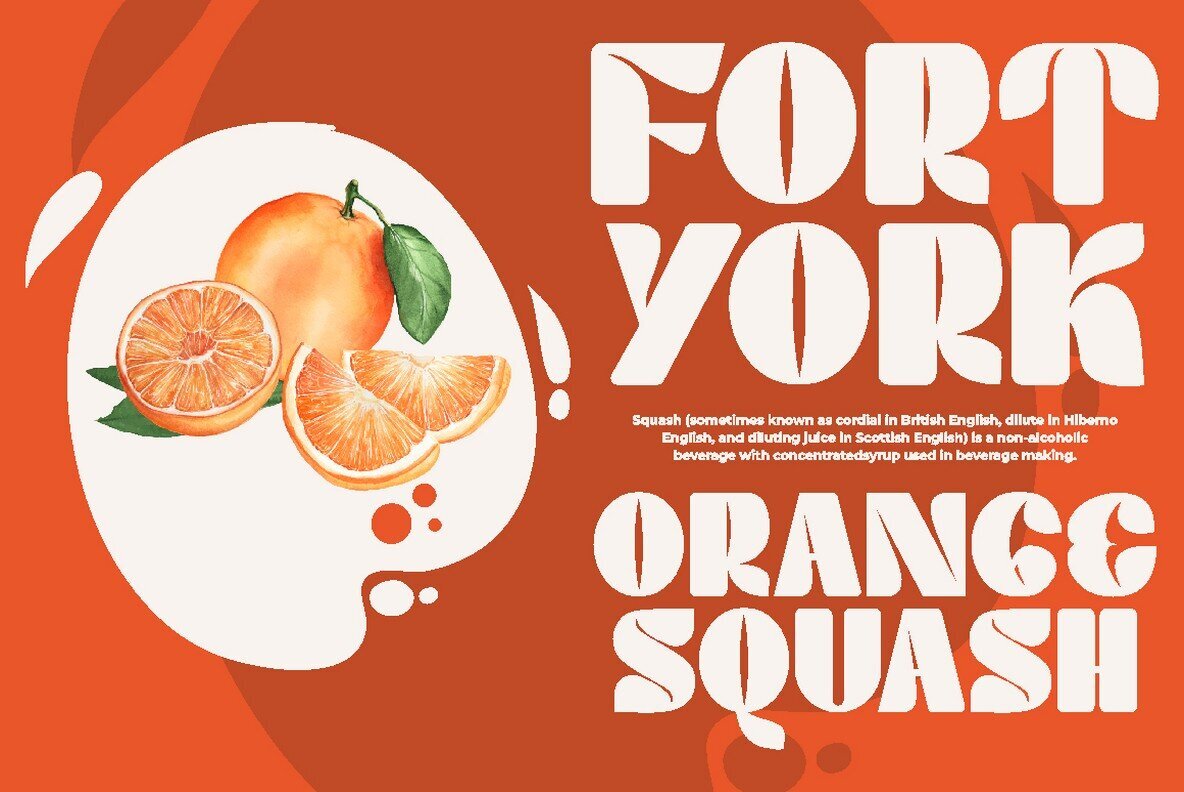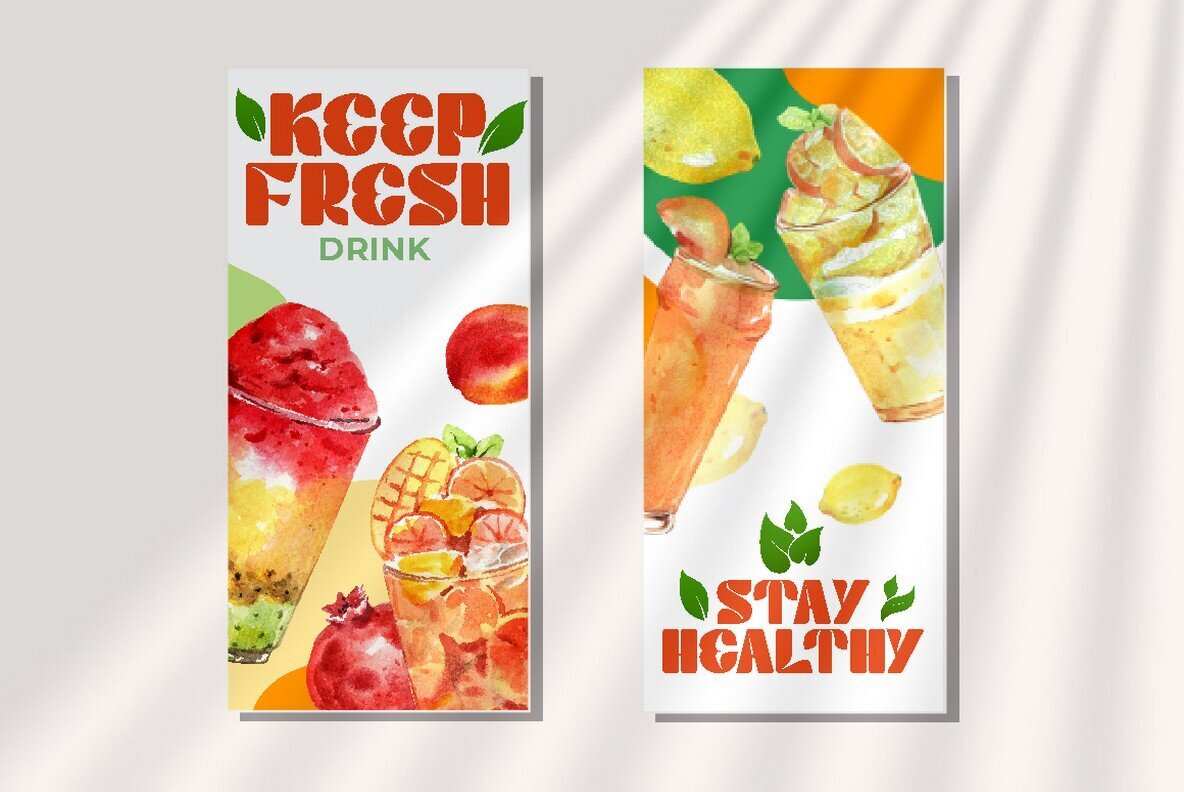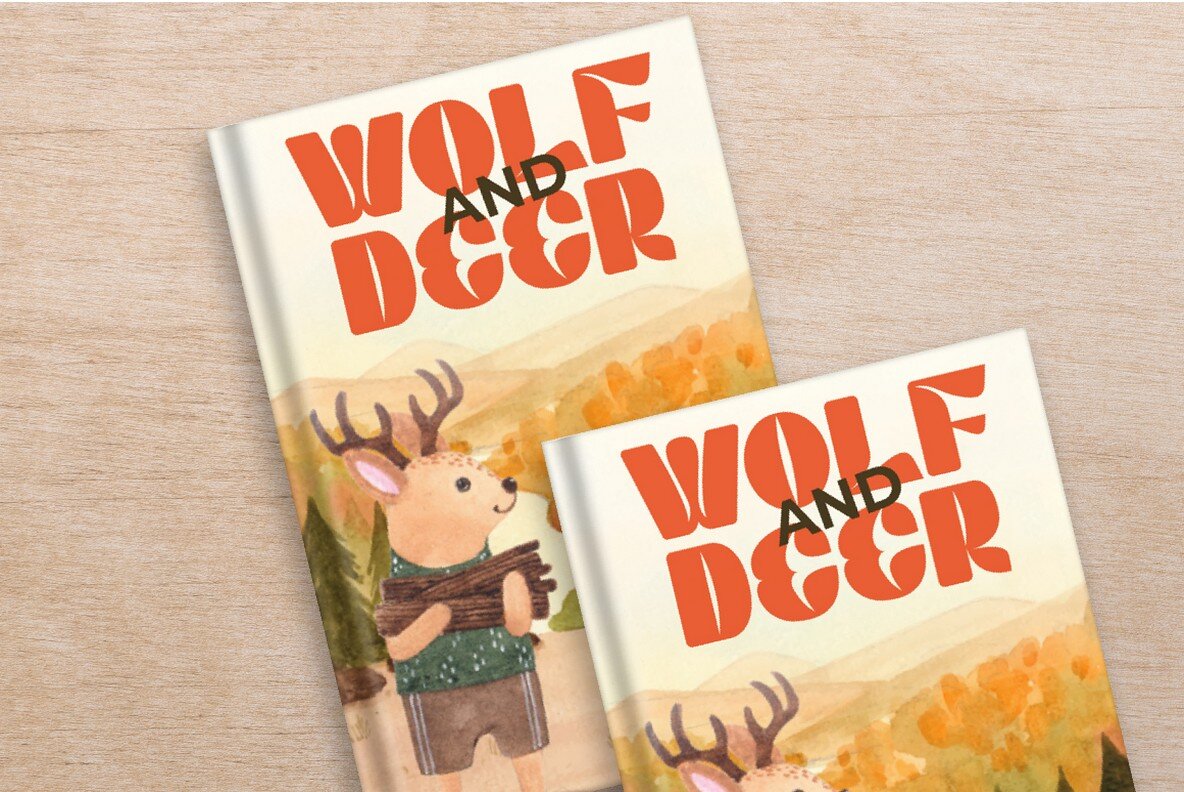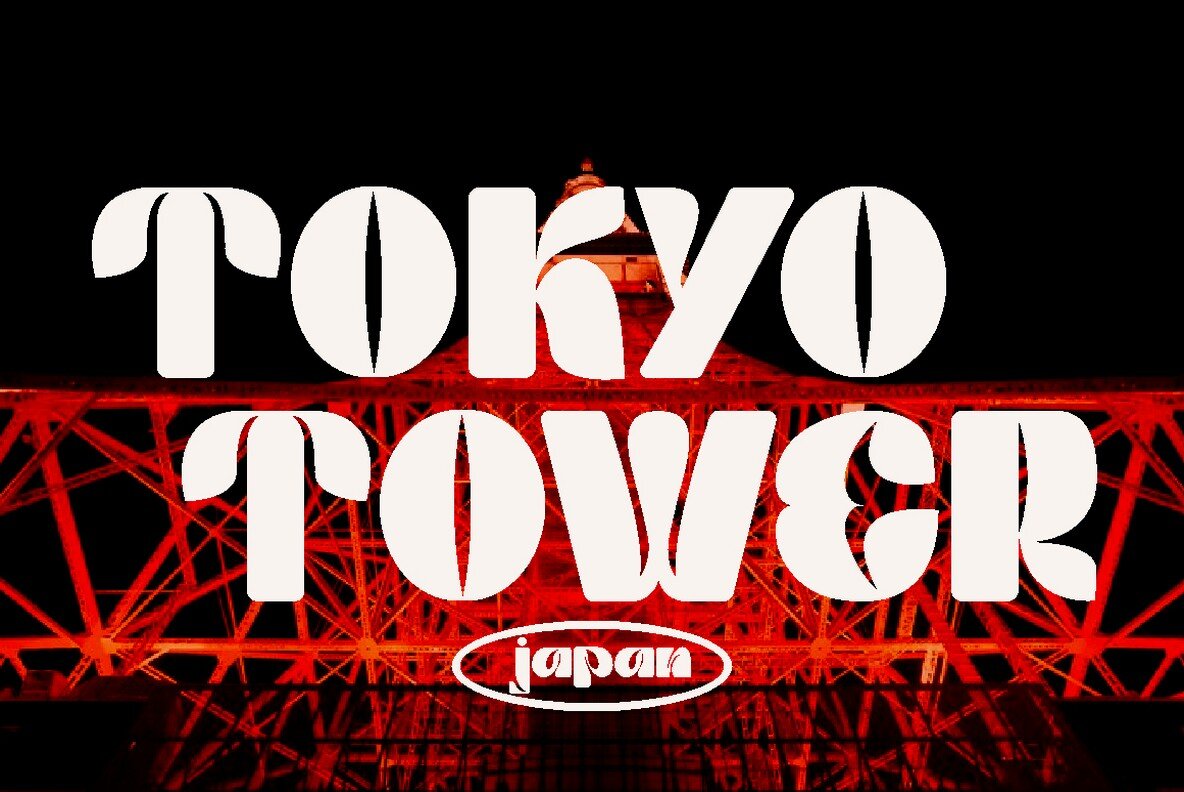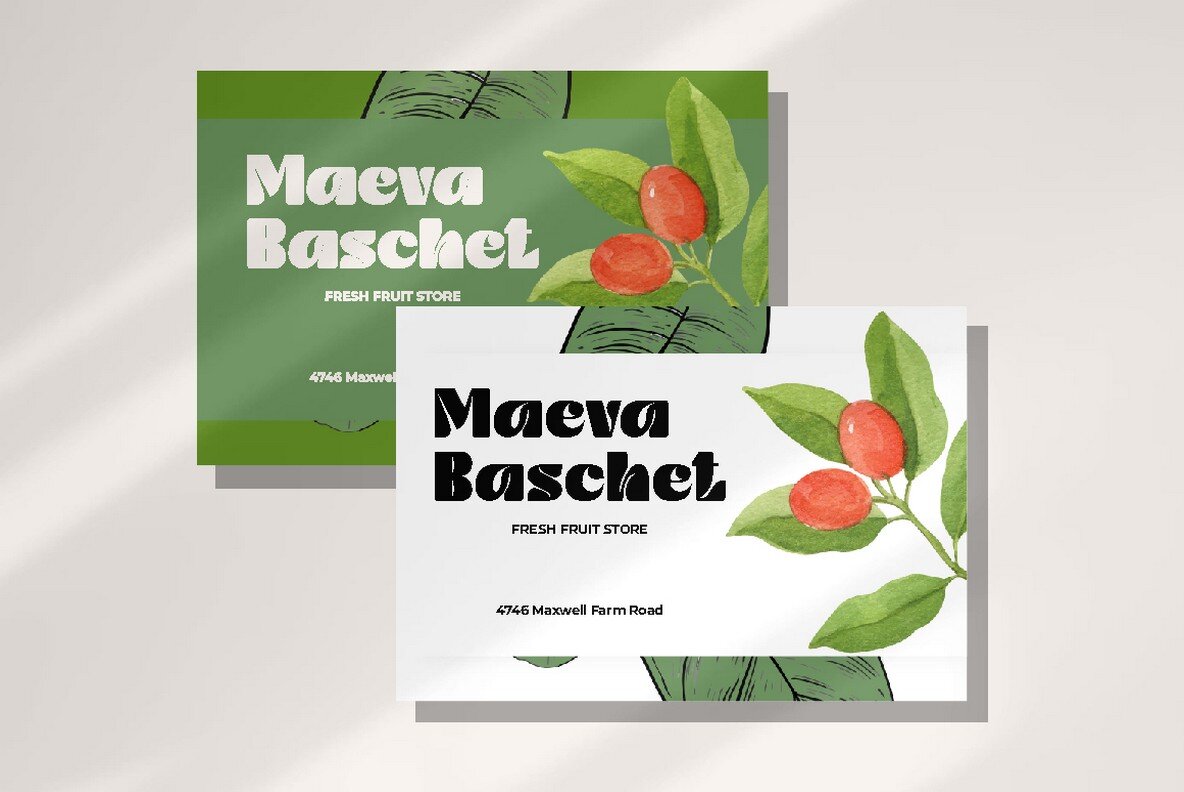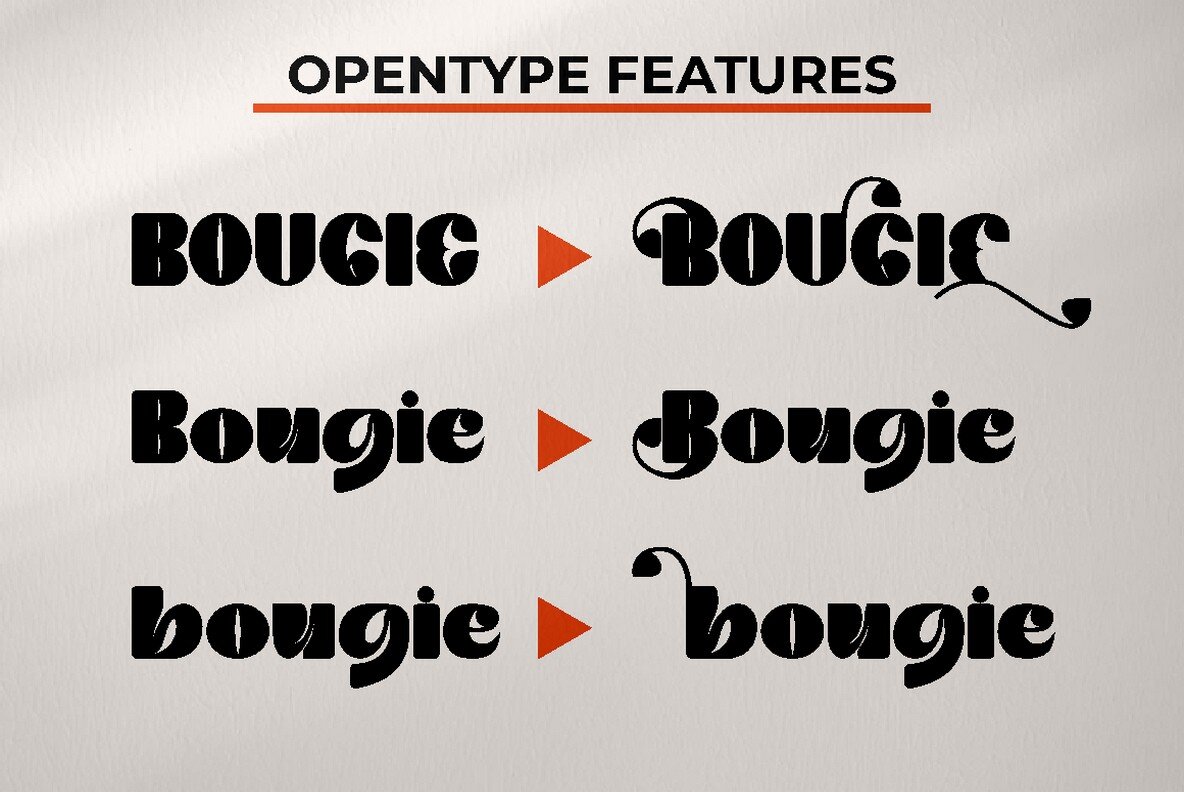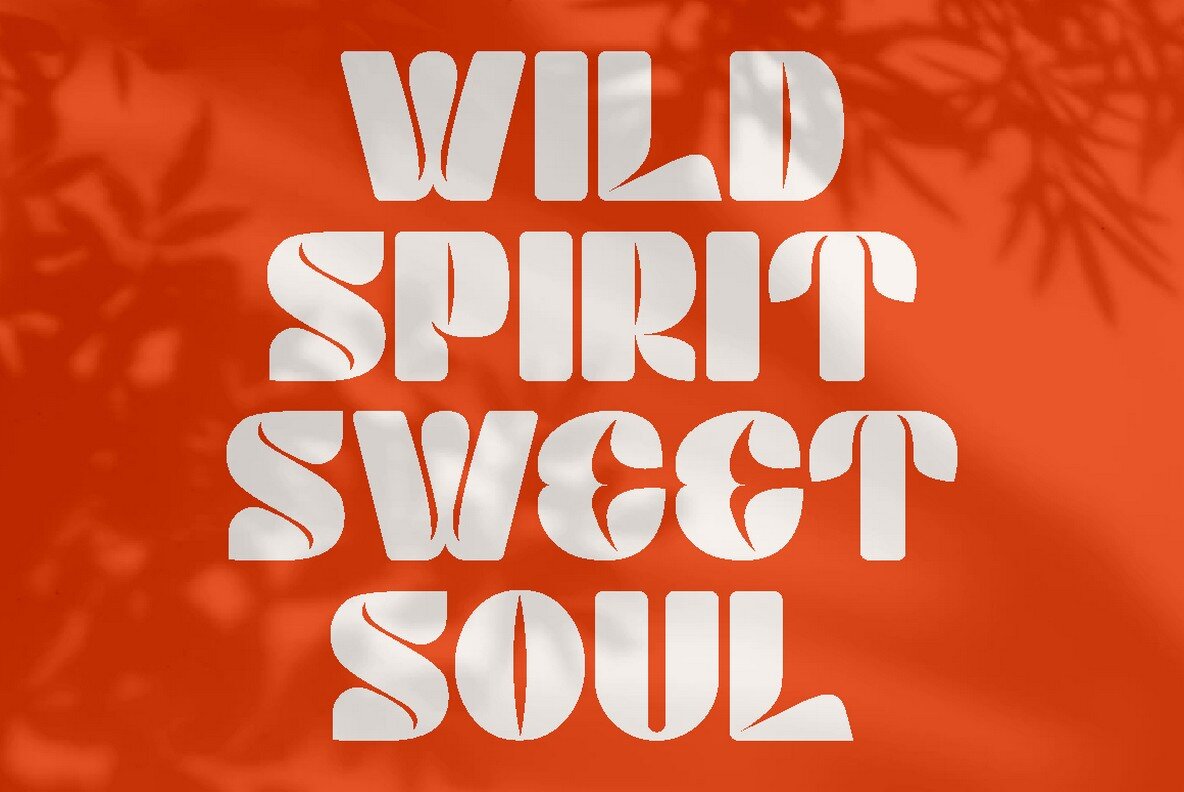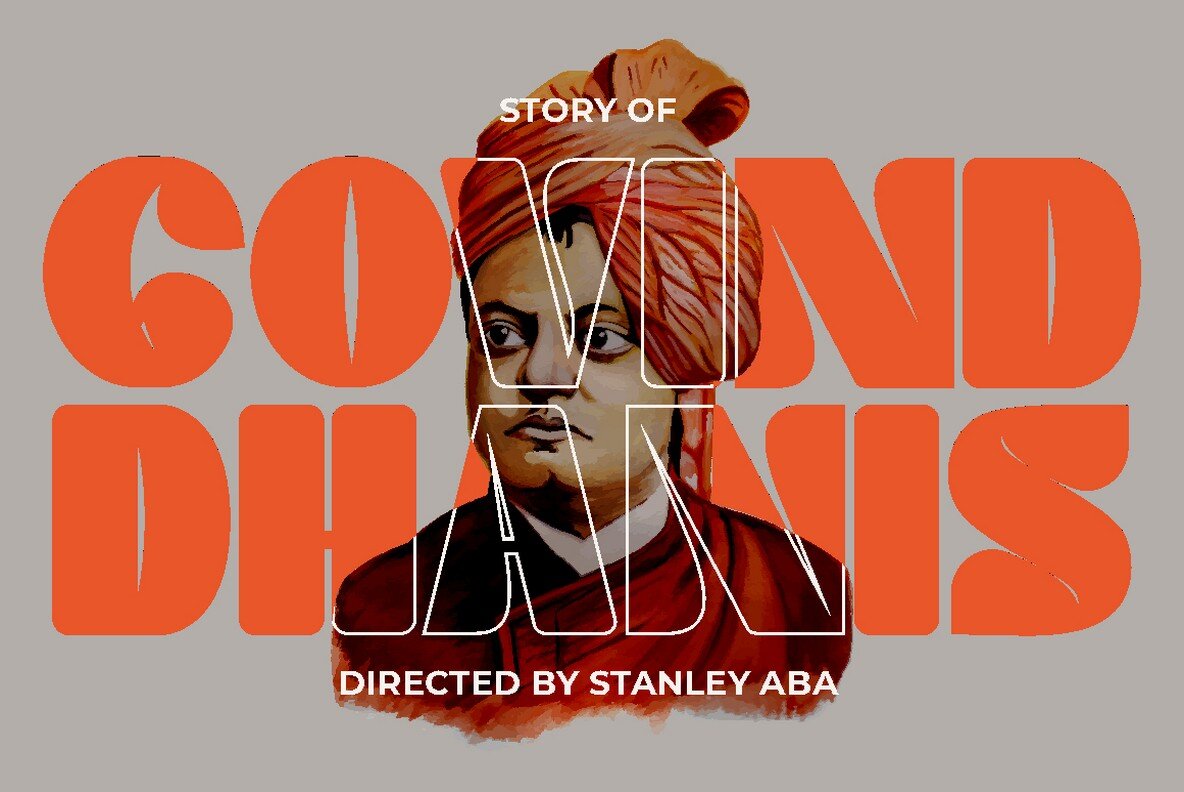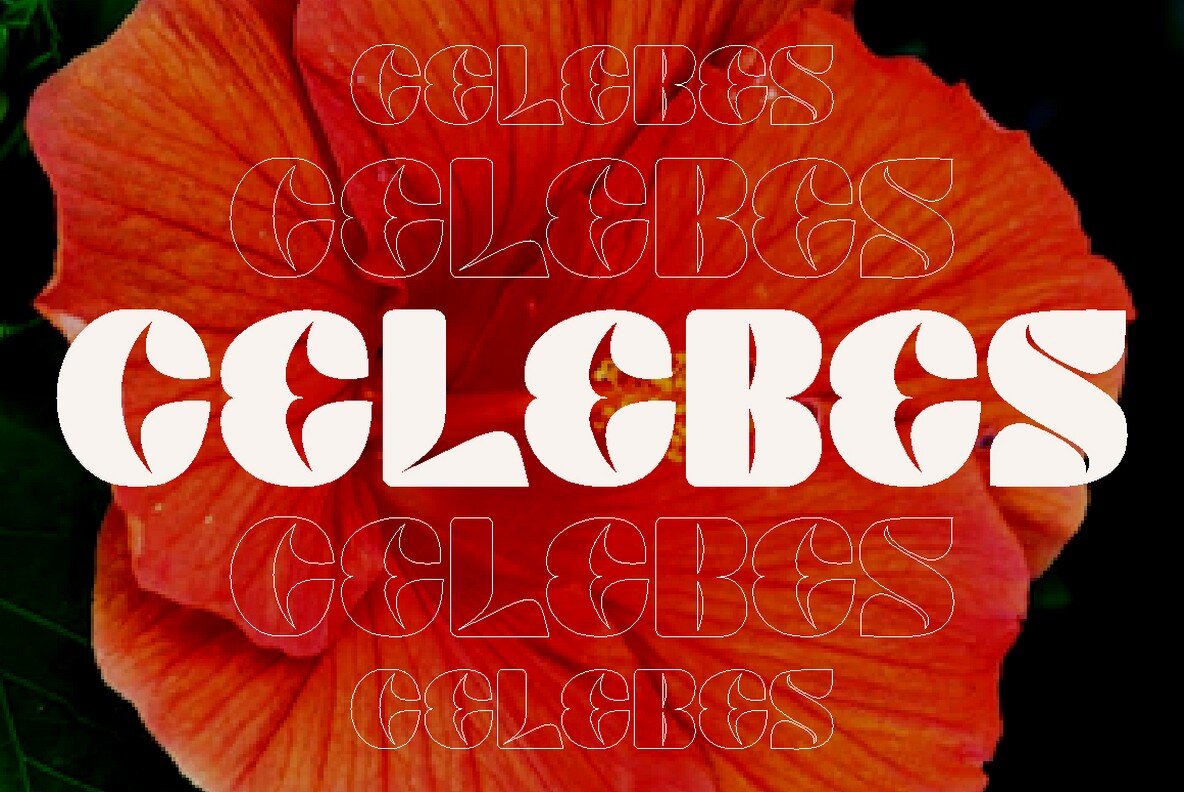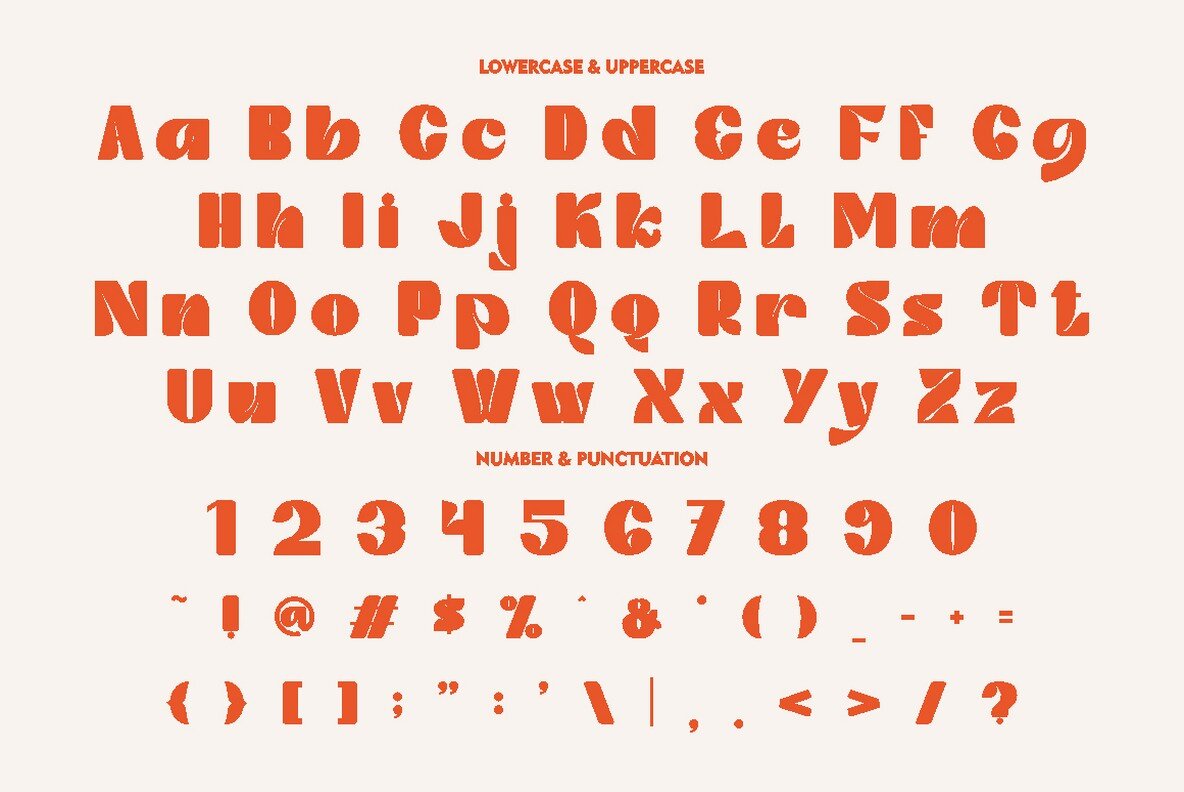
Nipsey Font
Nipsey
Nipsey - Display Font. Nipsey is a display style font. Nipsey is inspired by vintage albums and posters from 1970s music bands. The classic typeface, fun and groovy impression is very visible. But in Nipsey I combine several variations such as the ligature. It makes this font even more unique and different. Nipsey is also great for any kind of display purpose from album, cover,poster, label, tshirt, apparel, signage, quote, logo, greeting card,logotype and many more. Nipsey is also support multi language.